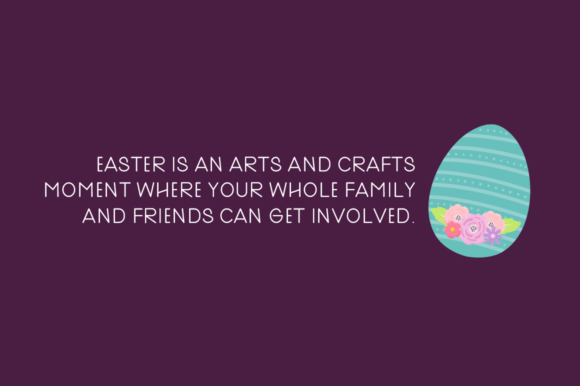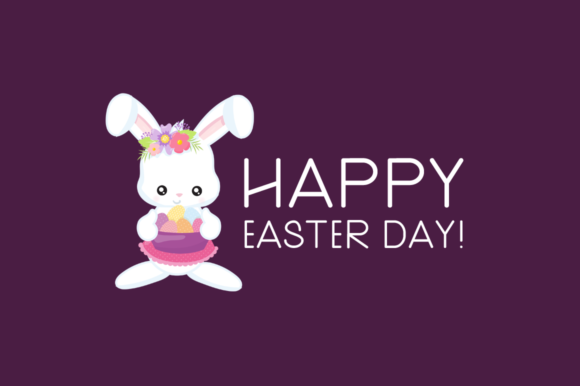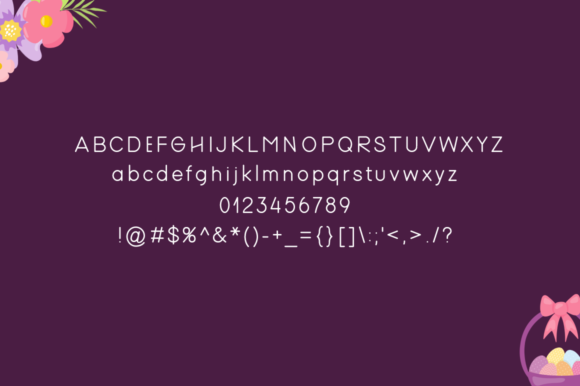
Egg-cellent Design: Exploring the Simple yet Stunning Eggs Font
Are you on the hunt for a font that’s as versatile as it is visually appealing? Look no further than the Eggs Font! This simple and casual display font has been making waves in the design community, and for good reason. With its undeniably clean feel and beautiful arrangement of letters, Eggs Font is the perfect addition to any design project, whether formal or non-formal.
The Characteristics of Eggs Font
So, what sets Eggs Font apart from other fonts on the market? For starters, its simplicity is part of its charm. The font features a clean and minimalist design, with each letter carefully crafted to be both elegant and easy to read. The neat arrangement of letters makes it perfect for use in a variety of design applications, from headings and titles to logos and branding materials.
But don’t let its simplicity fool you – Eggs Font is also incredibly versatile. It can be used in both formal and non-formal designs, making it a great addition to any designer’s toolkit. Whether you’re working on a corporate branding project or a fun and quirky craft project, Eggs Font is sure to impress.
The Benefits of Using Eggs Font
So, why should you consider using Eggs Font in your next design project? For one, its clean and simple design makes it incredibly easy to read, even at small sizes. This makes it perfect for use in digital applications, such as websites and social media graphics.
Eggs Font is also highly customizable, making it easy to tailor it to your specific design needs. Whether you want to change the color, size, or style of the font, Eggs Font is flexible enough to accommodate your needs.
Another benefit of using Eggs Font is its uniqueness. While it’s not a traditional serif or sans-serif font, Eggs Font has a distinctive look that’s sure to make your design stand out from the crowd.
Using Eggs Font in Your Design Projects
So, how can you start using Eggs Font in your design projects? Here are a few ideas to get you started:
- Logos and branding materials: Eggs Font is perfect for use in logos and branding materials, such as business cards, letterheads, and packaging.
- Headings and titles: The font’s clean and simple design makes it perfect for use in headings and titles, whether in print or digital applications.
- Social media graphics: Eggs Font is highly legible, even at small sizes, making it perfect for use in social media graphics, such as Facebook posts and Instagram stories.
- Craft projects: Whether you’re working on a craft project, such as scrapbooking or card-making, Eggs Font is a great choice for adding a personal touch to your designs.
Tips for Getting the Most out of Eggs Font
Here are a few tips for getting the most out of Eggs Font:
- Experiment with different sizes: Eggs Font is highly legible, even at small sizes, but it can also be used at larger sizes for maximum impact.
- Play with color: The font’s simple design makes it easy to pair with a wide range of colors, so don’t be afraid to experiment and find the perfect color scheme for your design.
- Mix and match: Eggs Font can be paired with a wide range of other fonts, so feel free to get creative and experiment with different font combinations.
In conclusion, Eggs Font is a simple yet stunning font that’s perfect for designers and crafters alike. Its clean and simple design makes it highly versatile, while its unique look is sure to make your design stand out from the crowd. Whether you’re working on a formal or non-formal design project, Eggs Font is a great choice for adding a touch of elegance and sophistication to your designs.
So why not give Eggs Font a try? With its ease of use, flexibility, and unique look, it’s sure to become a favorite in your design toolkit.